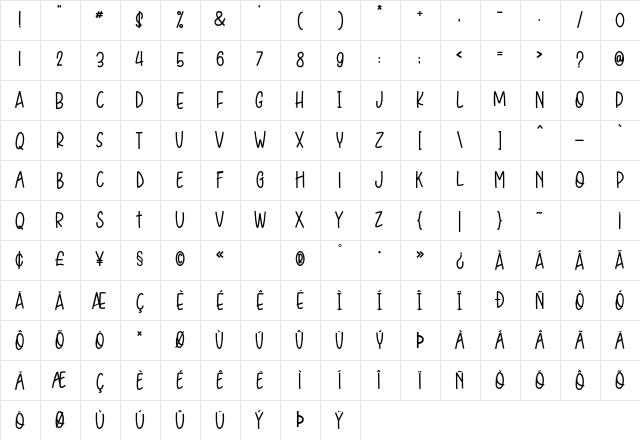
Playfull Regular
| Designer | Sigit Dwipa Raharjo |
Design Context for Playfull Typeface
Playfull has an approachable, lighthearted character — its loose, expressive forms are well-suited to children's content, casual branding, and fun-first design.
Font Pairing: Pairs well with a rounded or humanist sans for body copy, maintaining the friendly tone without relying on Playfull to carry extended reading.
Pro Tip: Avoid using Playfull for long passages of text — it works best for headlines, labels, and short calls to action.